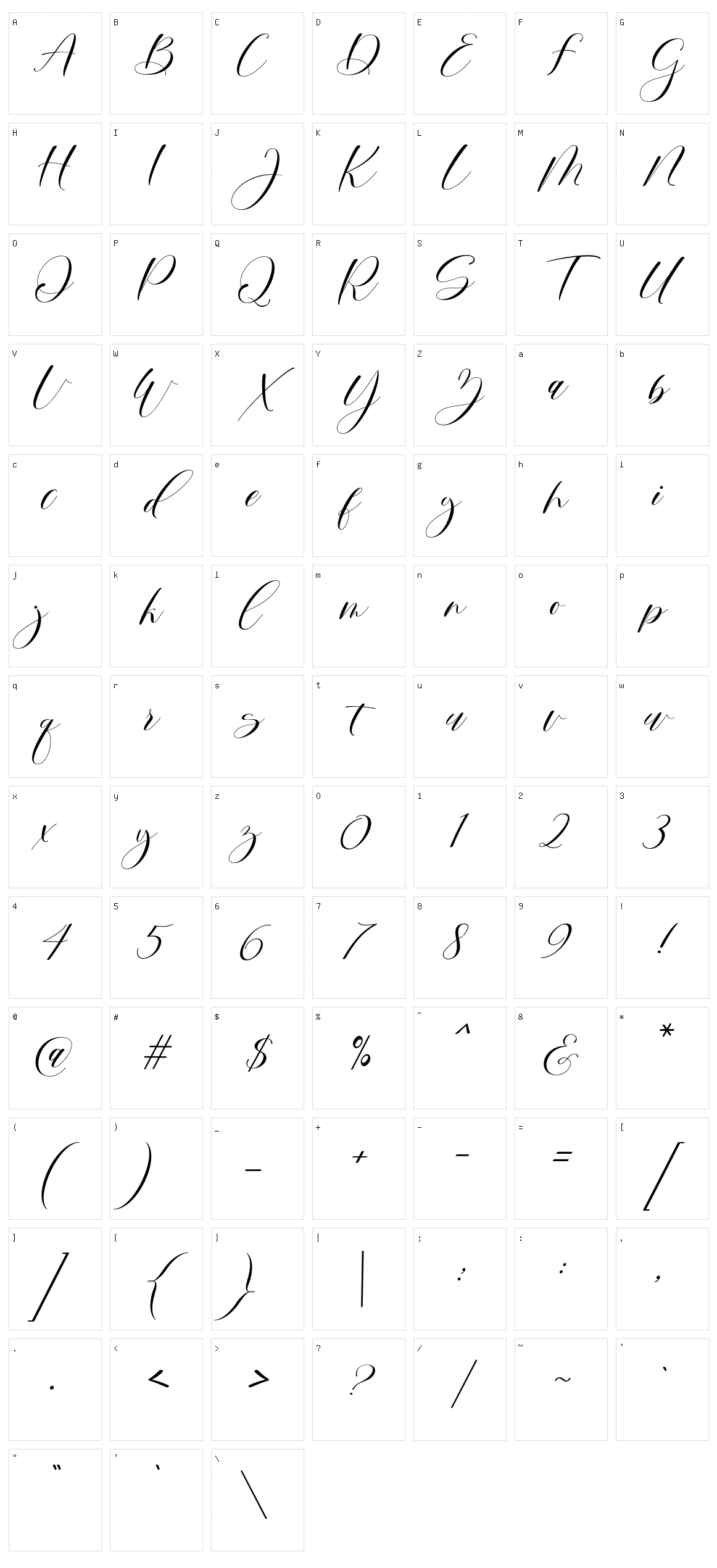
The free font Mortyni is carefully designed by Aqeela Studio, showcasing a thoughtful balance of creativity and usability and falls under the Script font style. When you download the ZIP file, it contains only 79.03 KB of font files, making it lightweight and quick to download. Please review the license details below to understand permitted usage and distribution rights. If license information is not available, we recommend using this font for personal projects only or contacting the author directly for commercial usage permissions.